Here are a few of our favorites from this bundle:
Pony by Rodrigo Type
This stunning font is stylized from the My Little Pony entertainment franchise, introduced by Hasbro in the early 1980’s. For those who are old enough to remember, this was one of the most recognizable toy line, and syndicated TV cartoon shows of the period. Pony font by Rodrigo Type includes OTF and TTF true type fonts, as well as EOT, WOFF & WOFF2 Files
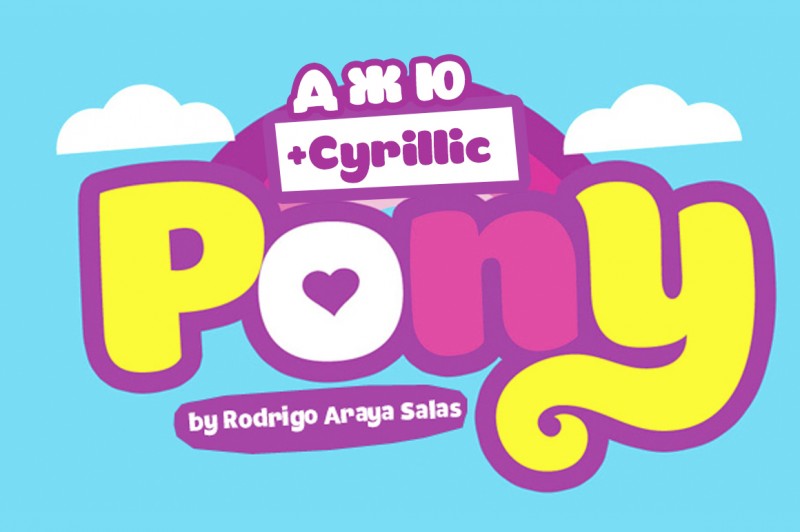
Steelmond by Dirtyline Studios
Steelmond is a calligraphic script font inspired from brush pen hand lettering. It is highly suitable for t-shirt, signage, logo, and branding. There are 326 glyphs and 158 alternate characters. OTF and TTF are included. Additional open type features are also accessible though Adobe Illustrator, InDesign, Corel Draw X6-X7.
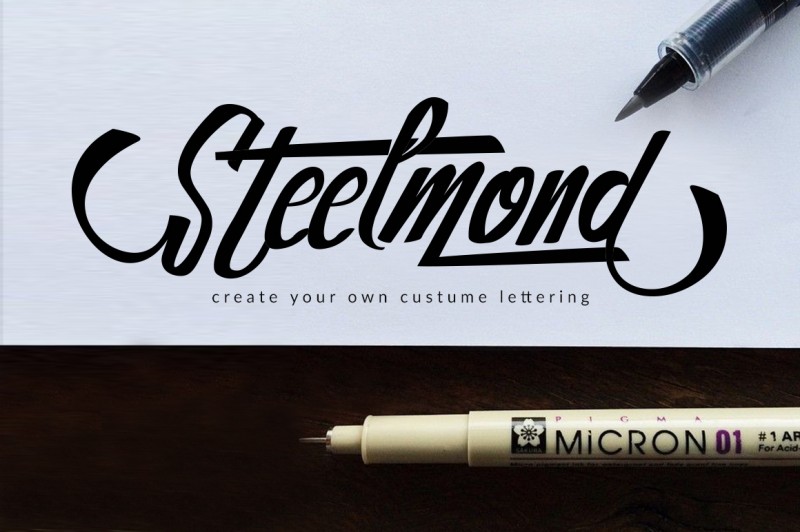
Helenita Book by Rodrigo
Type Helenita Book is sans serif font that comes in 2 variants: smooth and rough styled. Each font also comes in Regular and Italic, making a total of 4 different versions. This is a fun bolder font, which is well suited for headings and titles.
Taco + Tequila Typeface by Design Surplus
Feeling hungry? Like Mexican Food? Then you will love the Taco & Tequila typeface by Design Surplus. This is a great looking font, inspired by Mexico.
And if you happen to need a cactus, taco shell, or chili pepper graphic, you’re in luck! There are also 36 additional AI Mexican vectors included.
Praline by On the Spot Studio
Praline is a fun and unique hand-drawn font. But don’t underestimate this font. It can easily be used in any logo or branding. Files are available in OTF and TTF Files.
Evelyn Script by Dirtyline Studios
Evelyn is elegant and modern calligraphy typeface, which includes 392 Glyphs. Swashes and special characters are also included as standard fonts.